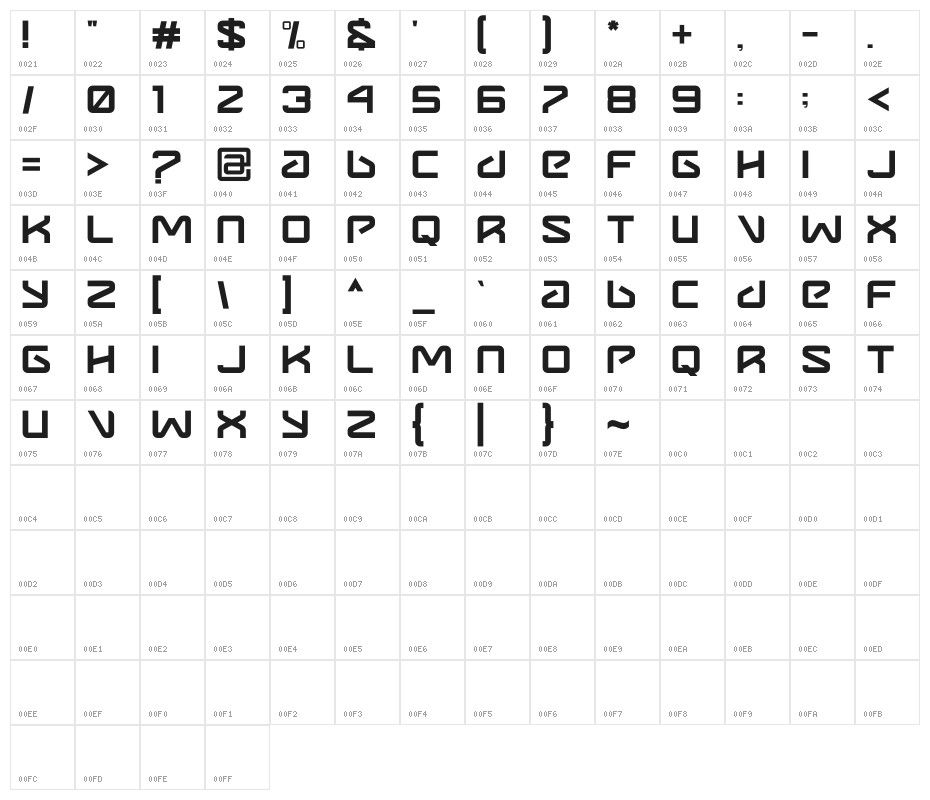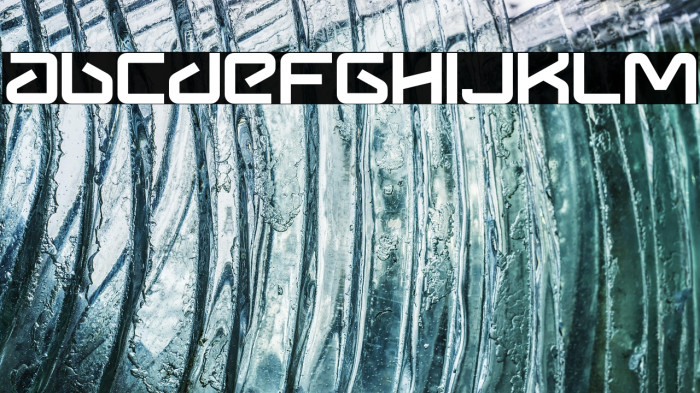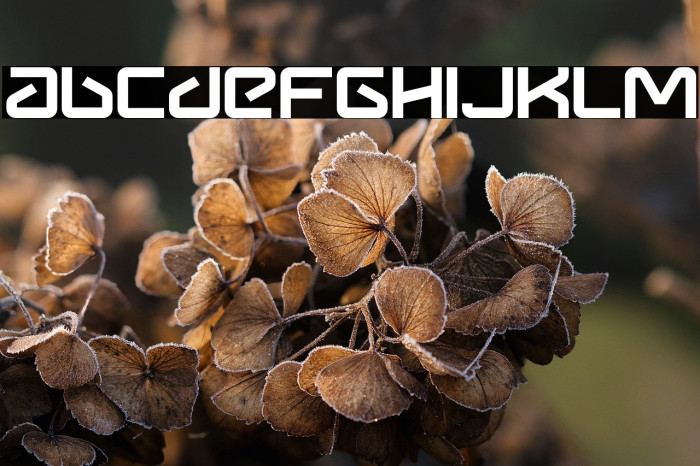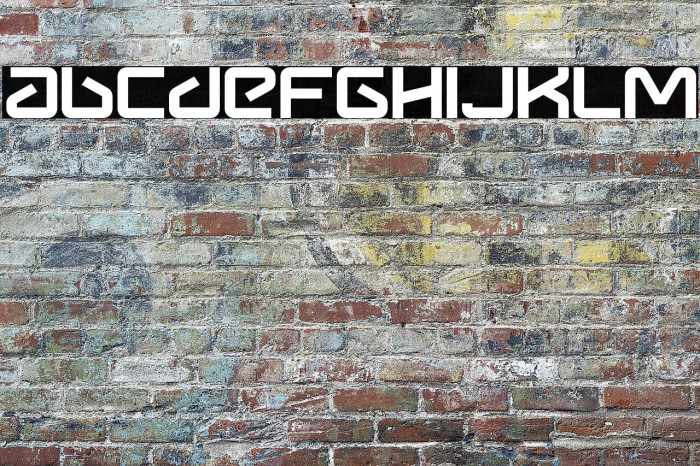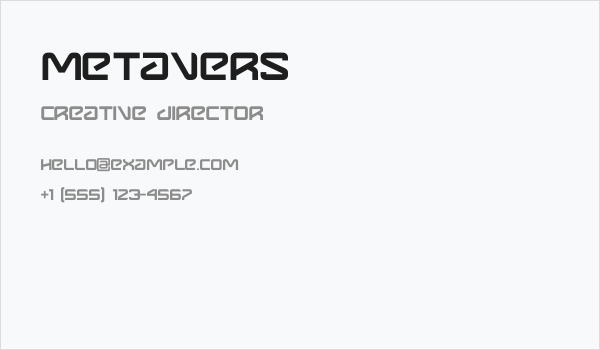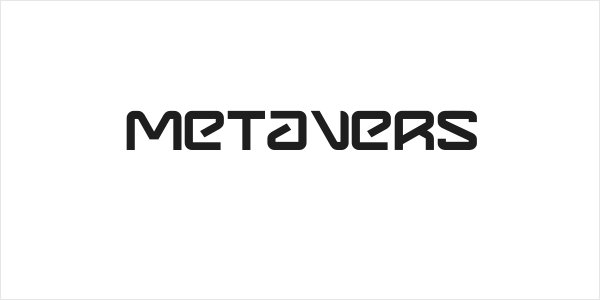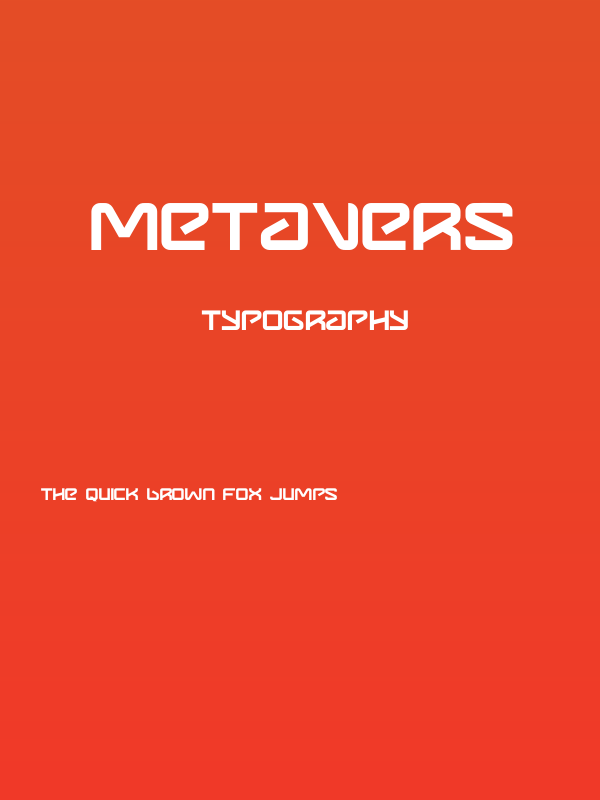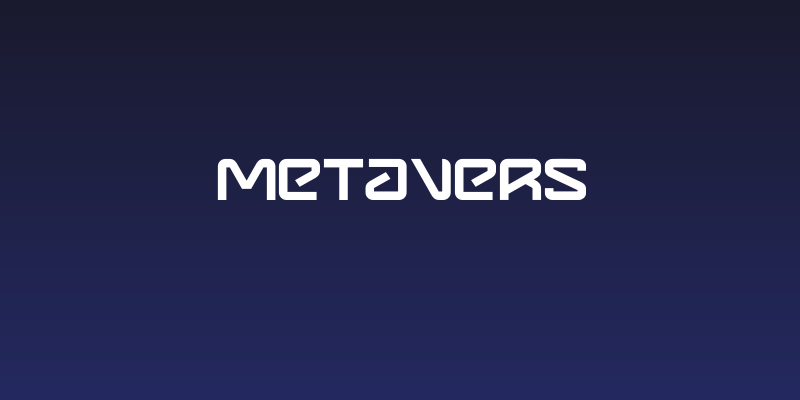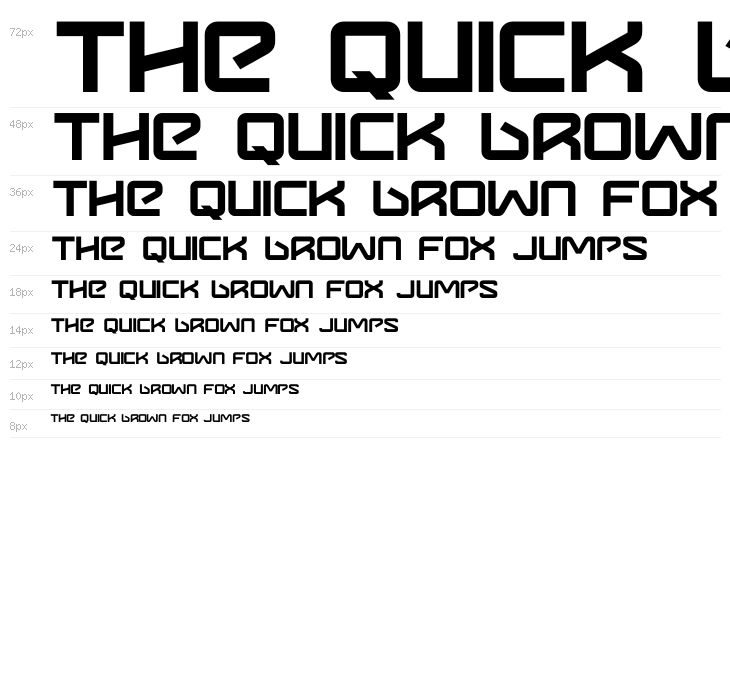
Metavers Font
Metavers Description
A futuristic, geometric sans-serif font with angular and sharp edges, suitable for modern and tech-oriented designs.
| Proposed Projects | Tech branding, digital interfaces, modern posters. |